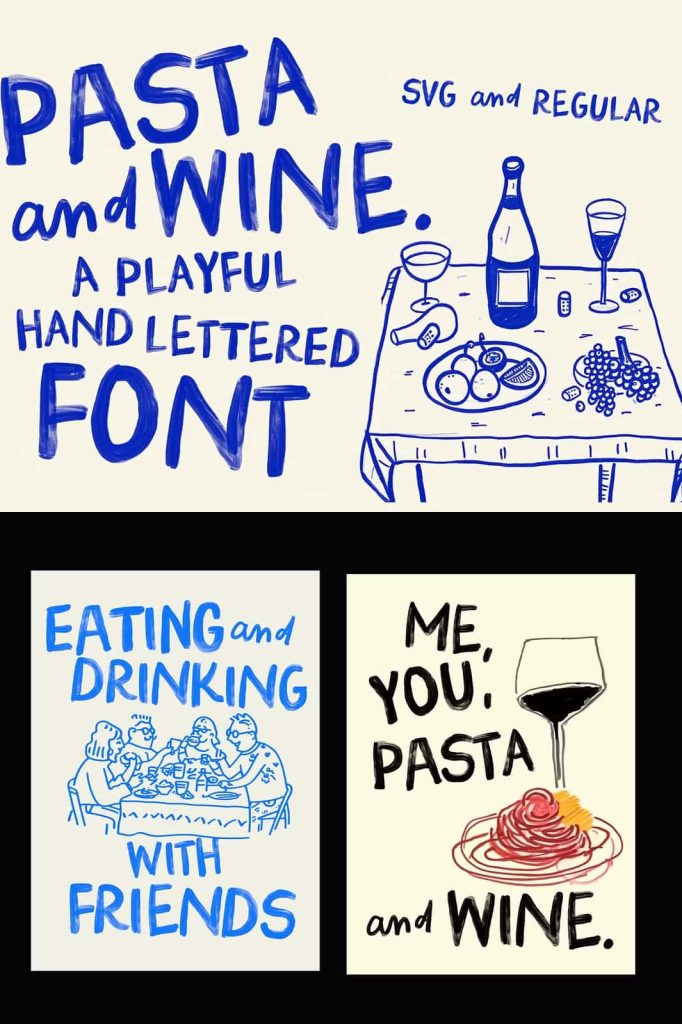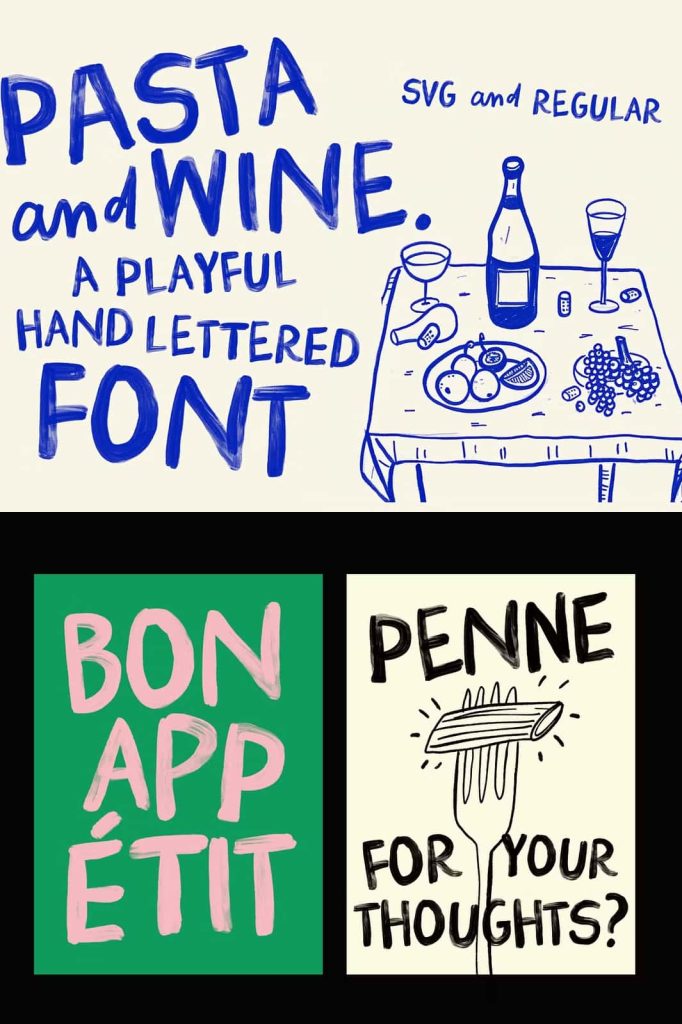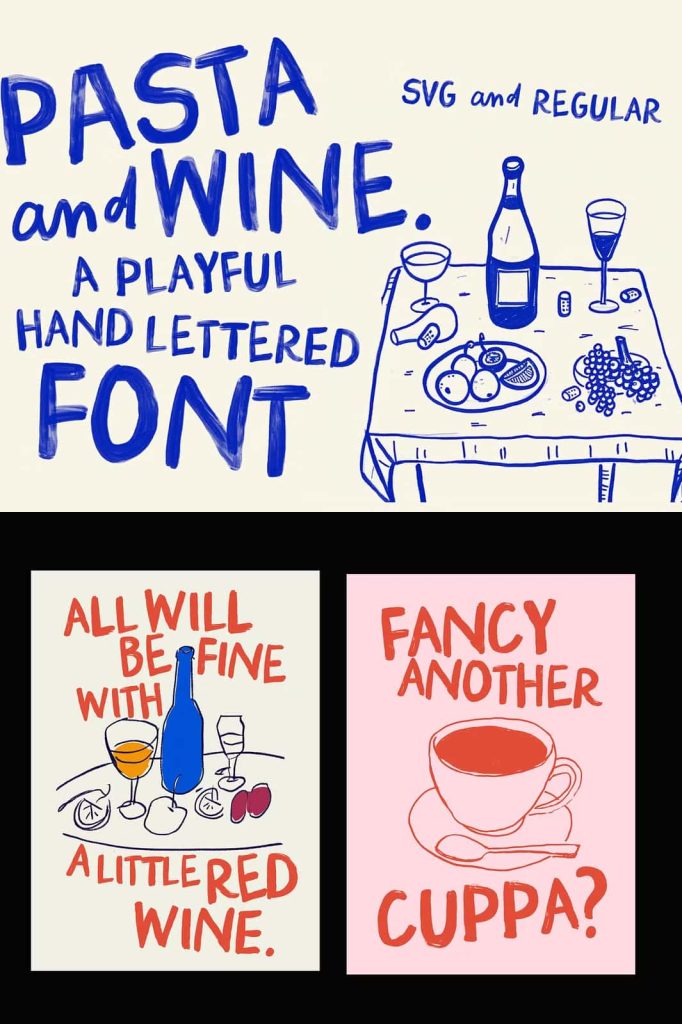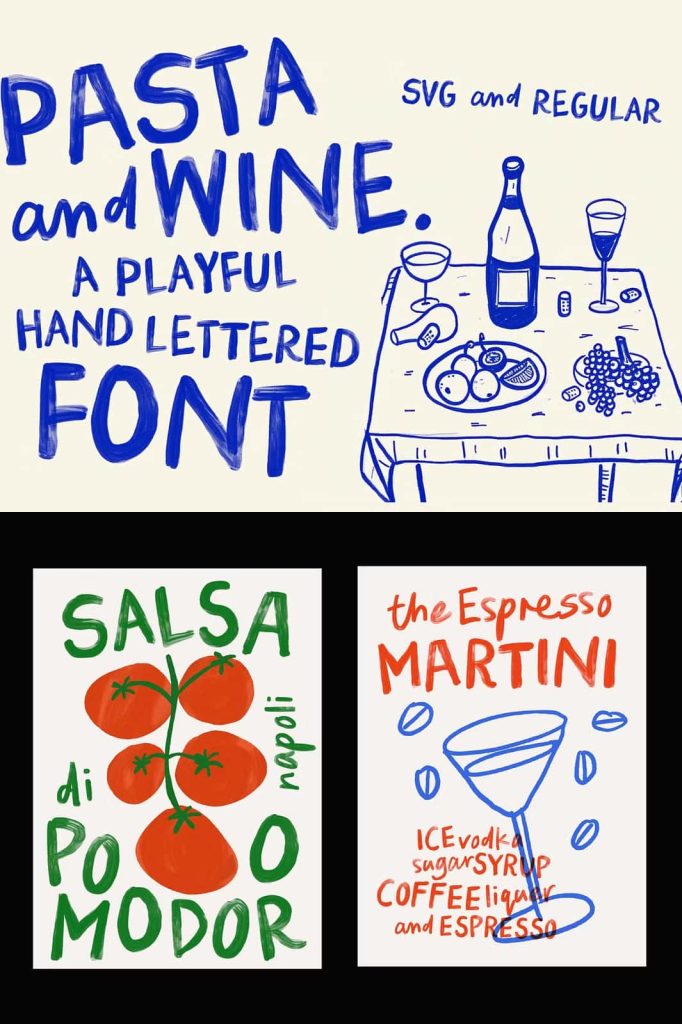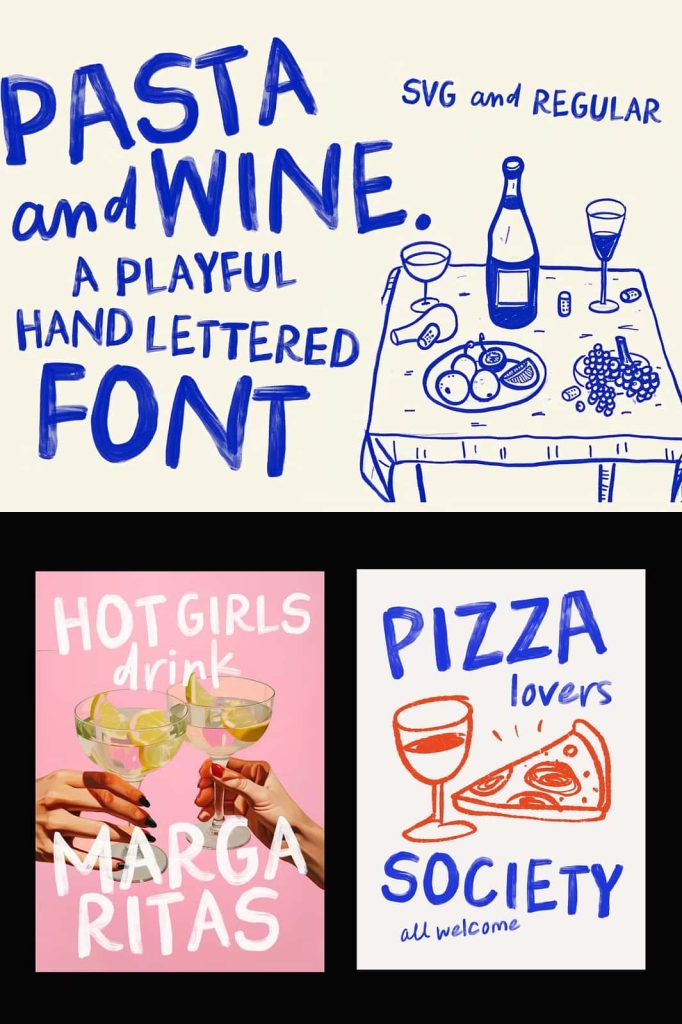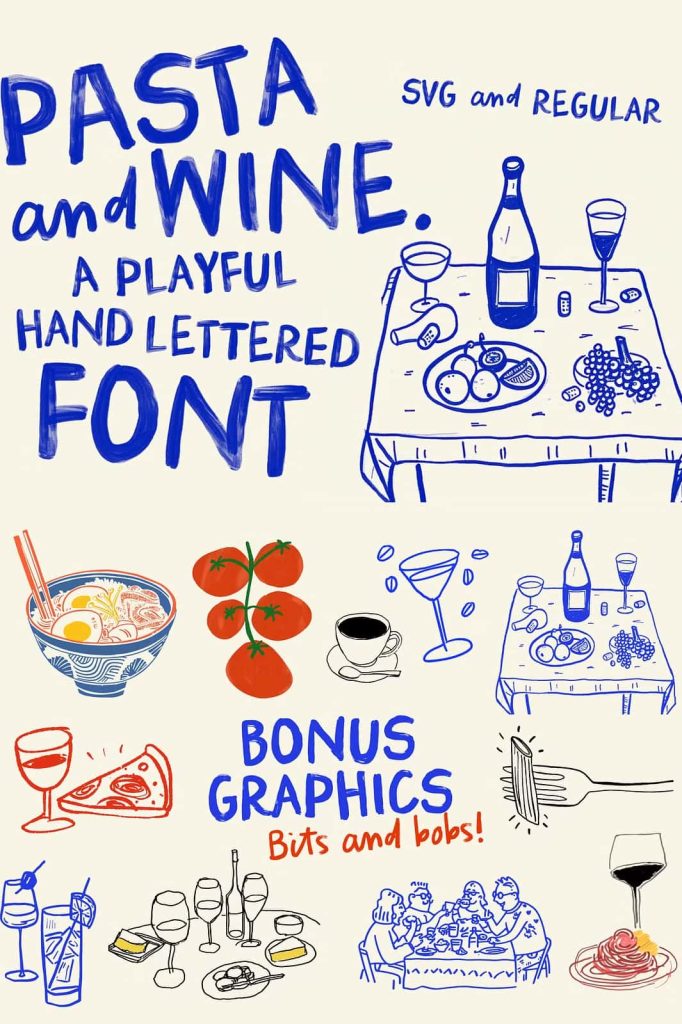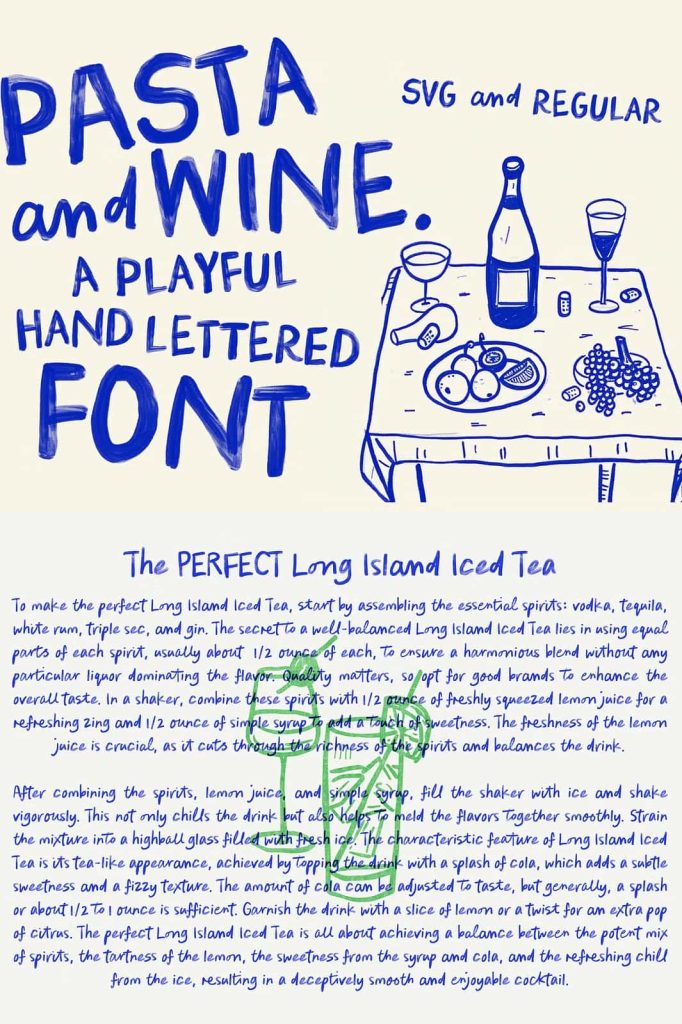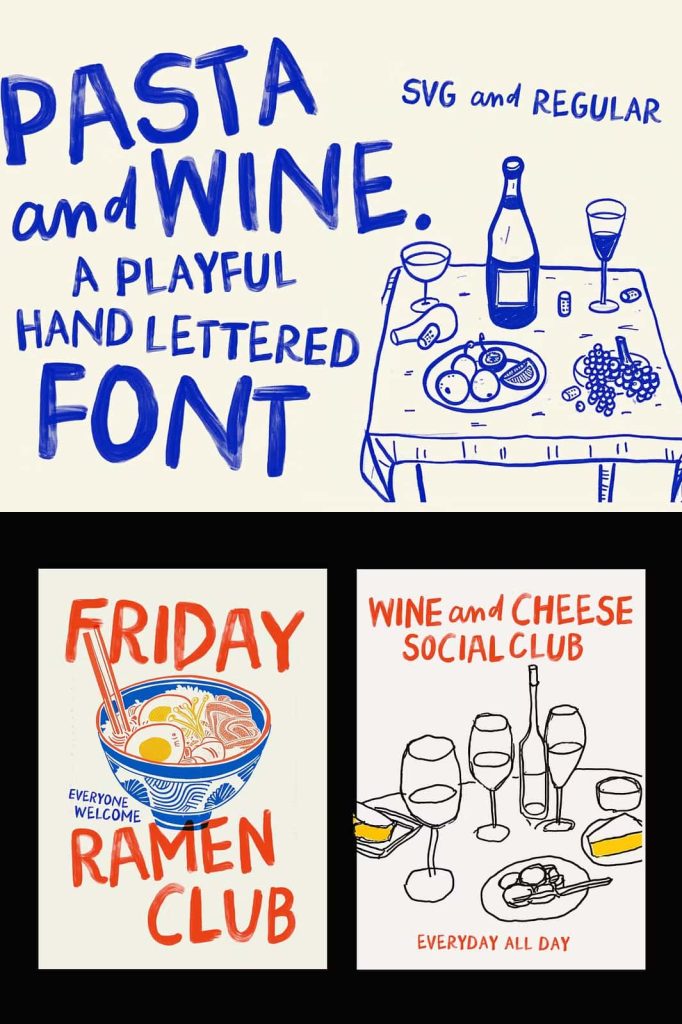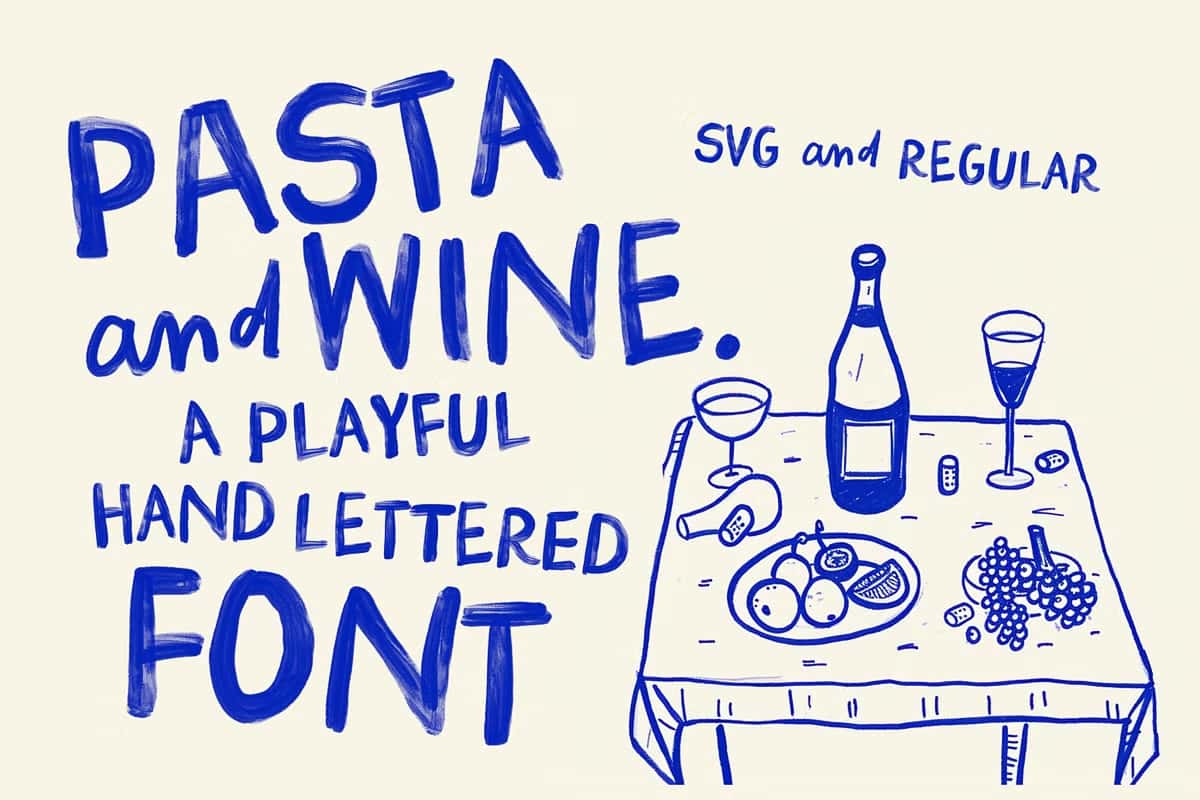
Pasta and Wine: A Playful Painted Bitmap SVG Font Full of Energy
Pasta and Wine is a bold, expressive painted bitmap SVG font created to bring joy, personality, and visual excitement into your designs. Inspired by hand-painted lettering and carefree creativity, this font delivers a lighthearted aesthetic that feels spontaneous, artistic, and full of character. Every letter bursts with pizazz, making Pasta and Wine an ideal choice for designers who want their typography to stand out with confidence and charm.
Unlike traditional digital fonts, Pasta and Wine embraces the raw, imperfect beauty of hand-painted strokes. Its bitmap SVG format preserves texture, depth, and organic variation, allowing your designs to feel handcrafted and authentic. This font does not aim to be subtle; it is designed to be seen, felt, and remembered.
A Hand-Painted Typeface with a Casual and Expressive Style
Pasta and Wine thrives on its casual and energetic personality. The painted style gives each letter a dynamic presence, creating typography that feels alive and spontaneous. This expressive quality makes the font especially effective for designs that need to communicate fun, creativity, and approachability.
Organic Brush Texture and Painted Details
Each character in Pasta and Wine features visible brush textures that capture the natural movement of paint on a surface. These details add depth and richness to the lettering, helping designs feel tactile and visually engaging. The bitmap SVG format ensures that these textures remain crisp and vibrant, even at large sizes.
Lighthearted Letterforms with Strong Personality
The letterforms are intentionally playful and relaxed. Slight variations in shape and weight reinforce the handmade feel, while bold strokes ensure strong visual impact. This balance allows Pasta and Wine to feel casual without appearing careless, making it suitable for both creative and commercial projects.
Designed for Bold and Cheeky Creative Projects
Pasta and Wine is built for designs that want to make a statement. Its energetic appearance instantly draws attention and sets a fun tone, making it perfect for bold, expressive applications.
Eye-Catching Posters and Promotional Graphics
This font performs exceptionally well in posters and large-format graphics. Its painted strokes and high-contrast texture help headlines stand out from a distance, making it ideal for events, pop-ups, food festivals, and creative campaigns. Pasta and Wine transforms simple messages into eye-catching visual experiences.
Playful Greeting Cards and Invitations
For greeting cards and invitations, Pasta and Wine adds warmth and personality. Its hand-painted look creates an emotional connection, making messages feel more personal and joyful. It works especially well for celebratory occasions, casual gatherings, and creative announcements.
Perfect for Branding with Character and Attitude
Pasta and Wine brings a bold voice to branding projects that aim to feel approachable, artistic, and memorable. Its casual painted style helps brands express creativity and authenticity while standing apart from more polished or corporate typography.
Cheeky and Fun Brand Identities
This font is ideal for brands that want to communicate playfulness and confidence. Food brands, cafés, creative studios, lifestyle products, and event-based businesses can use Pasta and Wine to create branding that feels energetic and inviting. The font’s personality helps build a strong emotional connection with audiences.
Social Media and Digital Campaigns
In digital spaces, Pasta and Wine excels at grabbing attention. Its bold painted style works well for social media graphics, digital ads, and promotional banners. The texture-rich SVG format ensures that the font maintains its visual strength across screens and resolutions.
Why Choose Pasta and Wine for Your Design Collection
Pasta and Wine is more than just a font; it is a creative tool designed to inject fun and energy into typography. Its hand-painted bitmap SVG construction preserves texture and personality, allowing designers to create designs that feel authentic and expressive.
If you are looking for a fun, super-casual painted font that delivers bold character and playful charm, Pasta and Wine is an excellent choice. It empowers designers to create posters, greeting cards, and branding that feel lively, confident, and full of creative spirit.